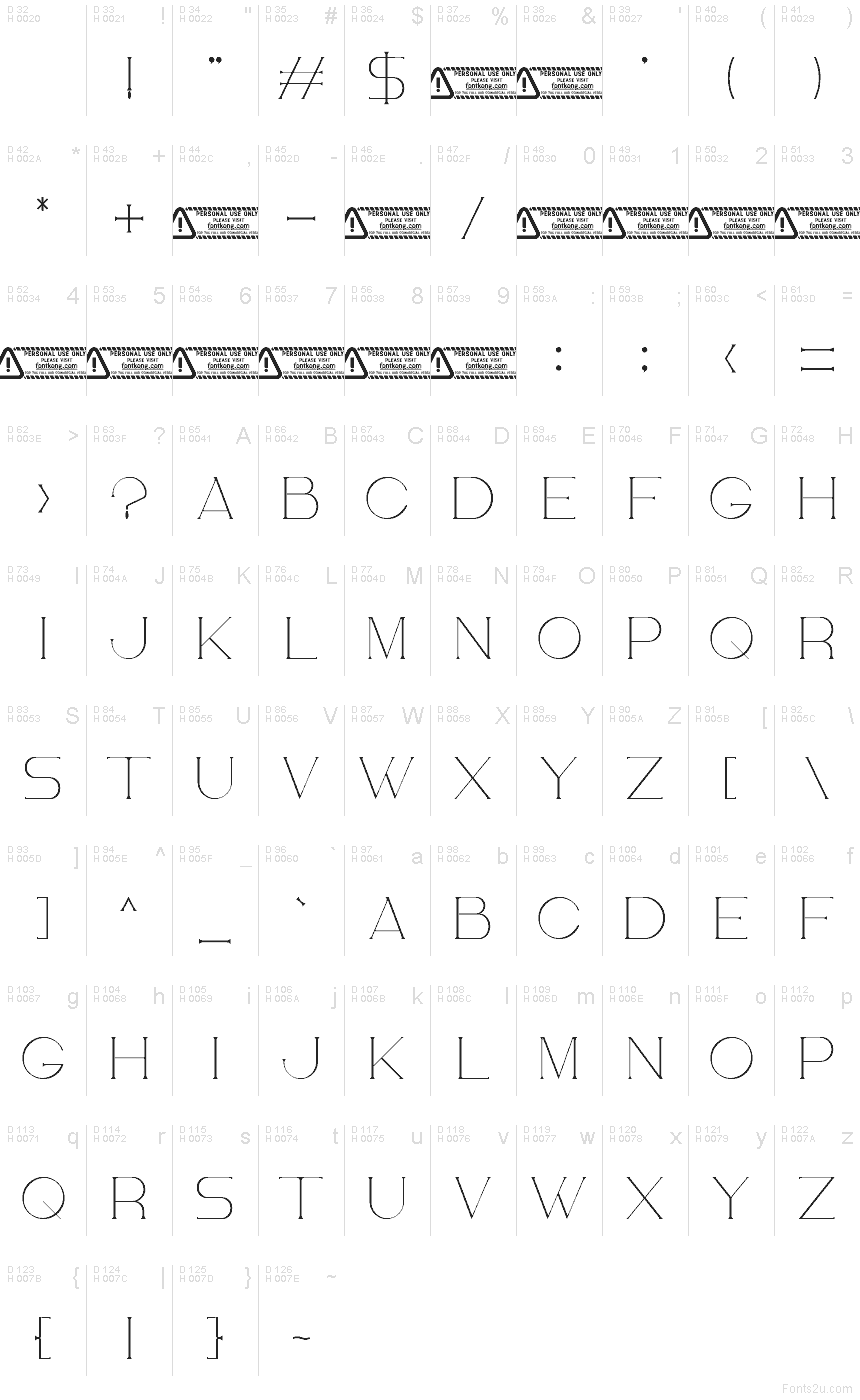
Aesthetic font is designed by Kong Font to impress with sleek, geometric, and minimalist glyphs. This light monochrome font adopts influences from modernist classics. And upon combining that with a thinner weight and clean lines, it produces an unusual font which can have contemporary applications in digital media and branding.
Use this free serif font for your logo, header design, titles in branding material – print or digital – on posters and banners, use it for newspaper/magazine title designs, and add it to your website front page. Use it in badges/labels creation or on product packaging as well.